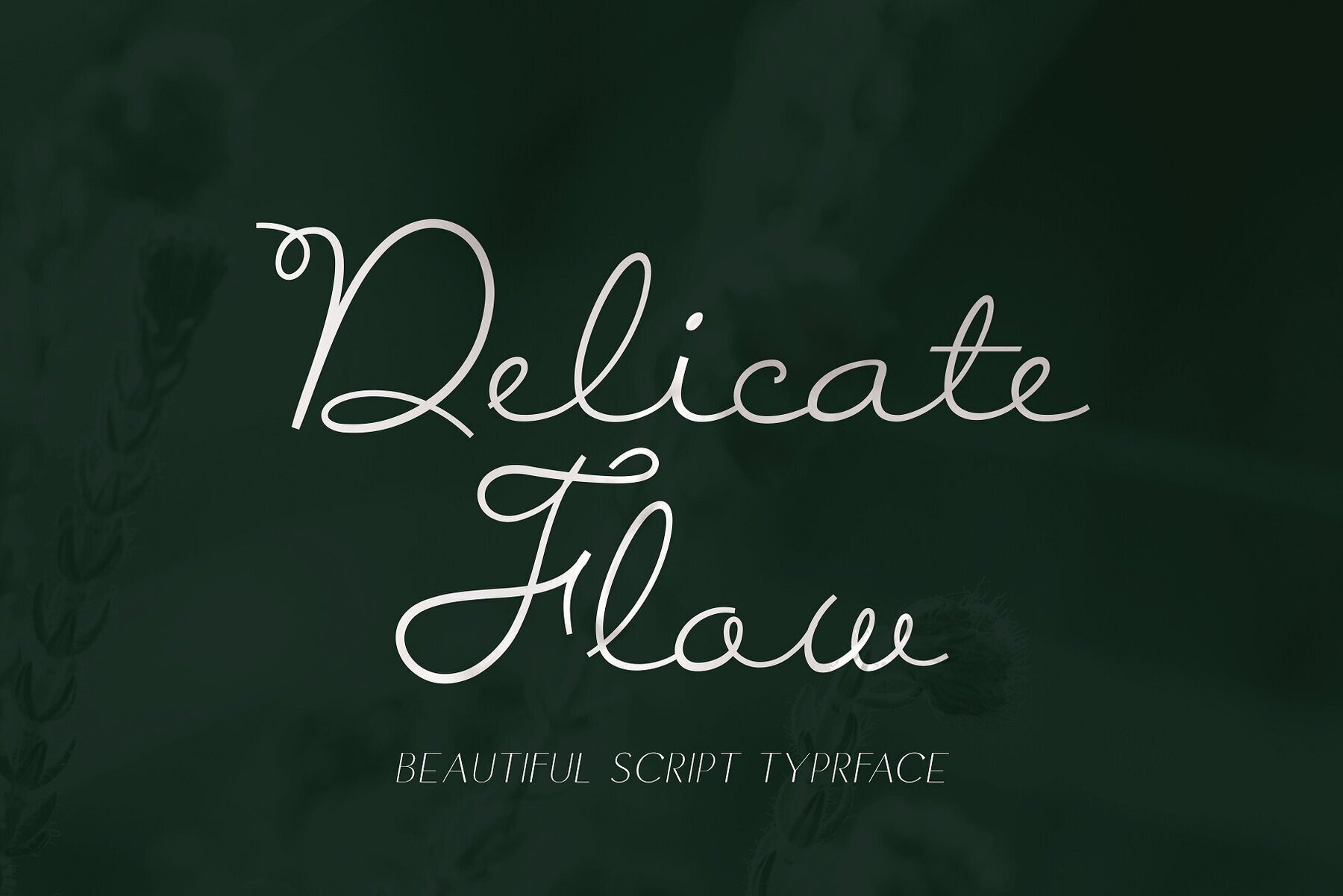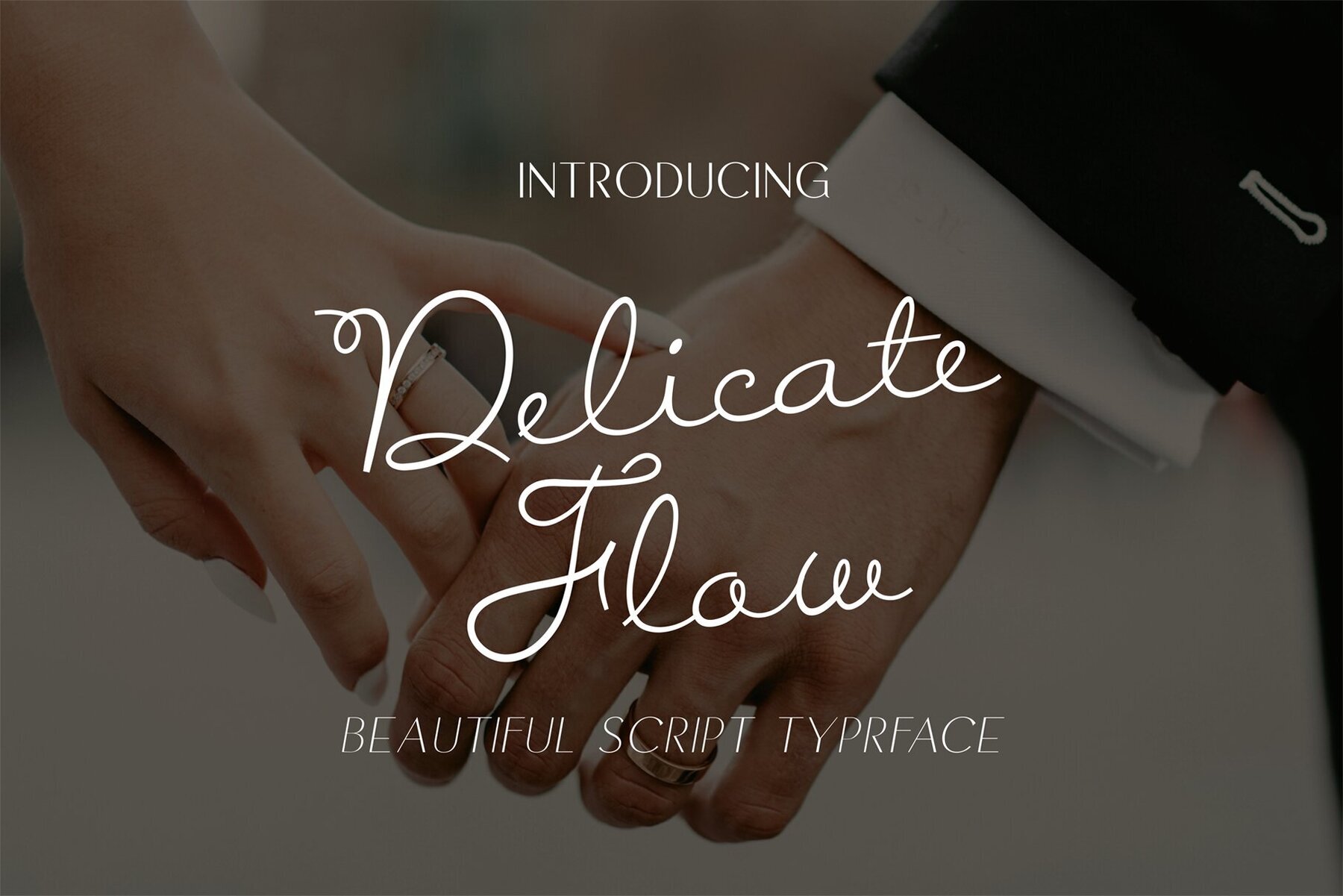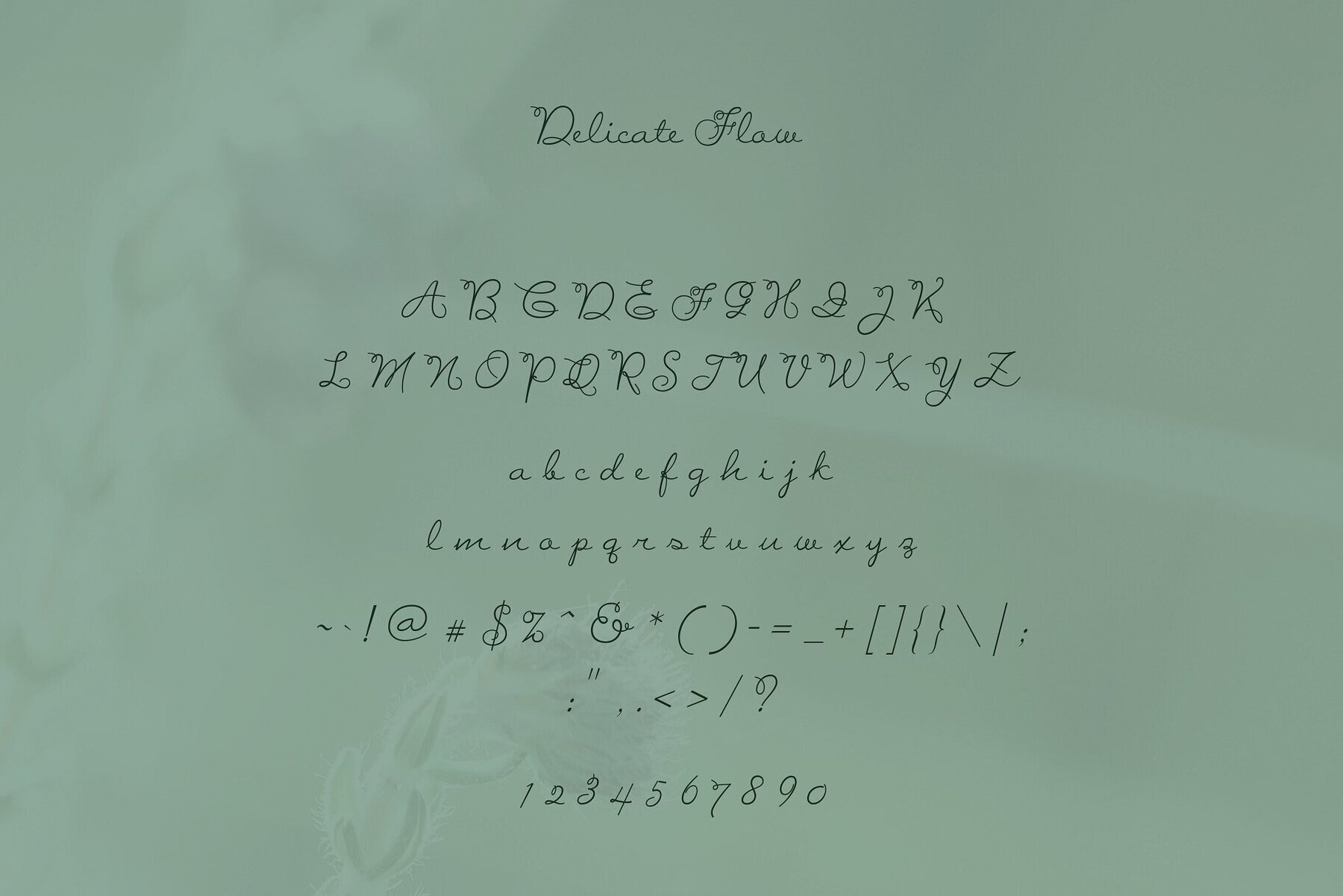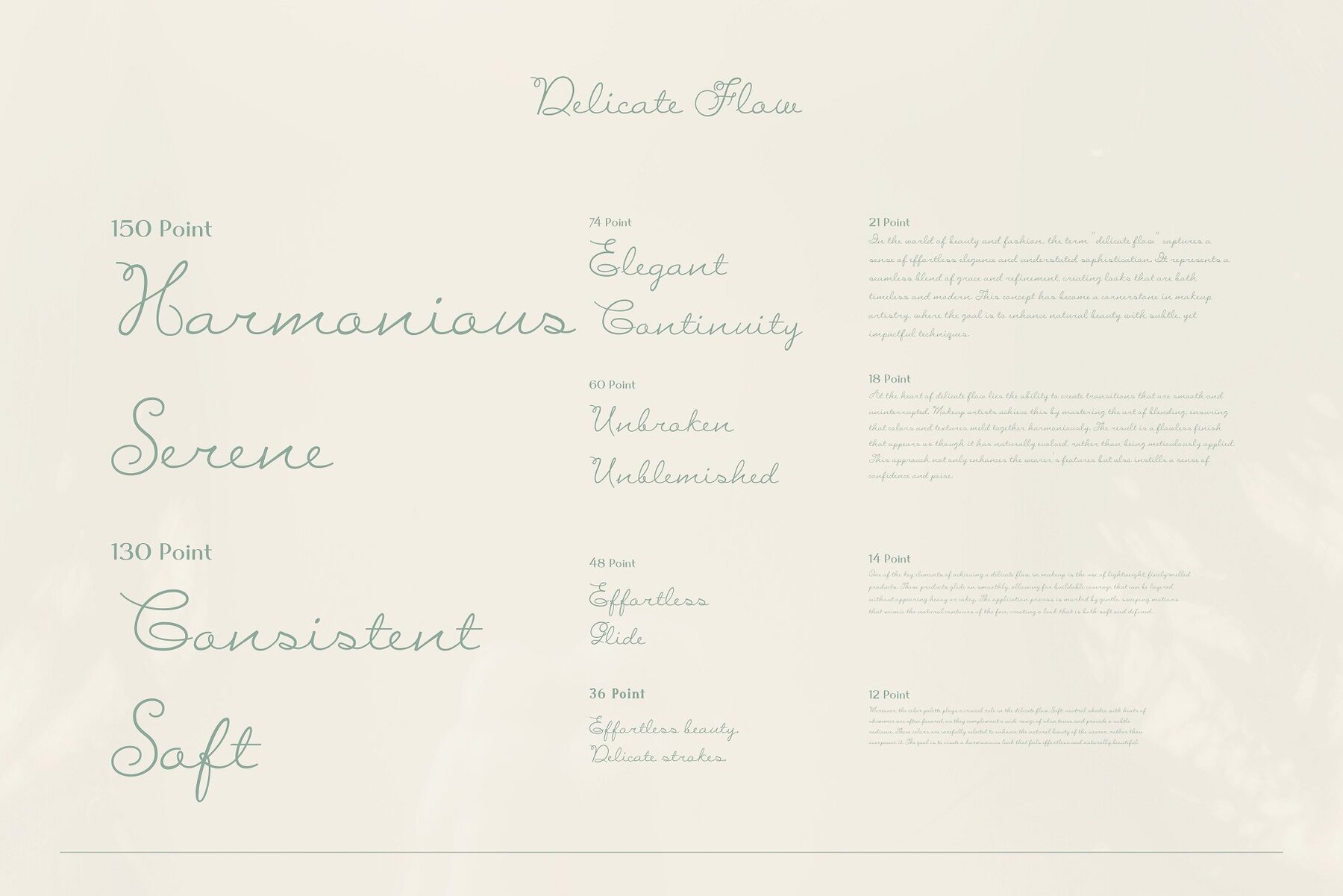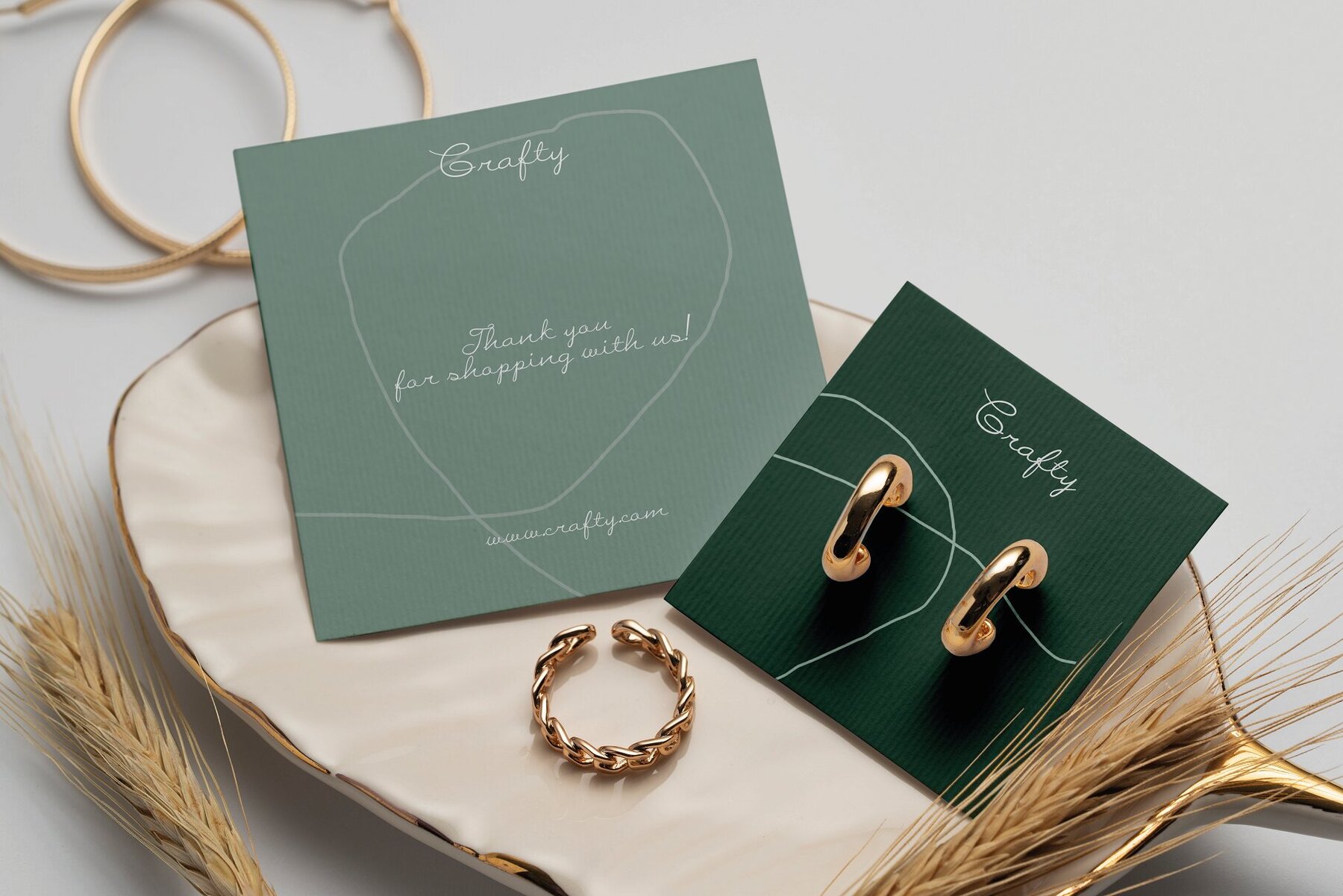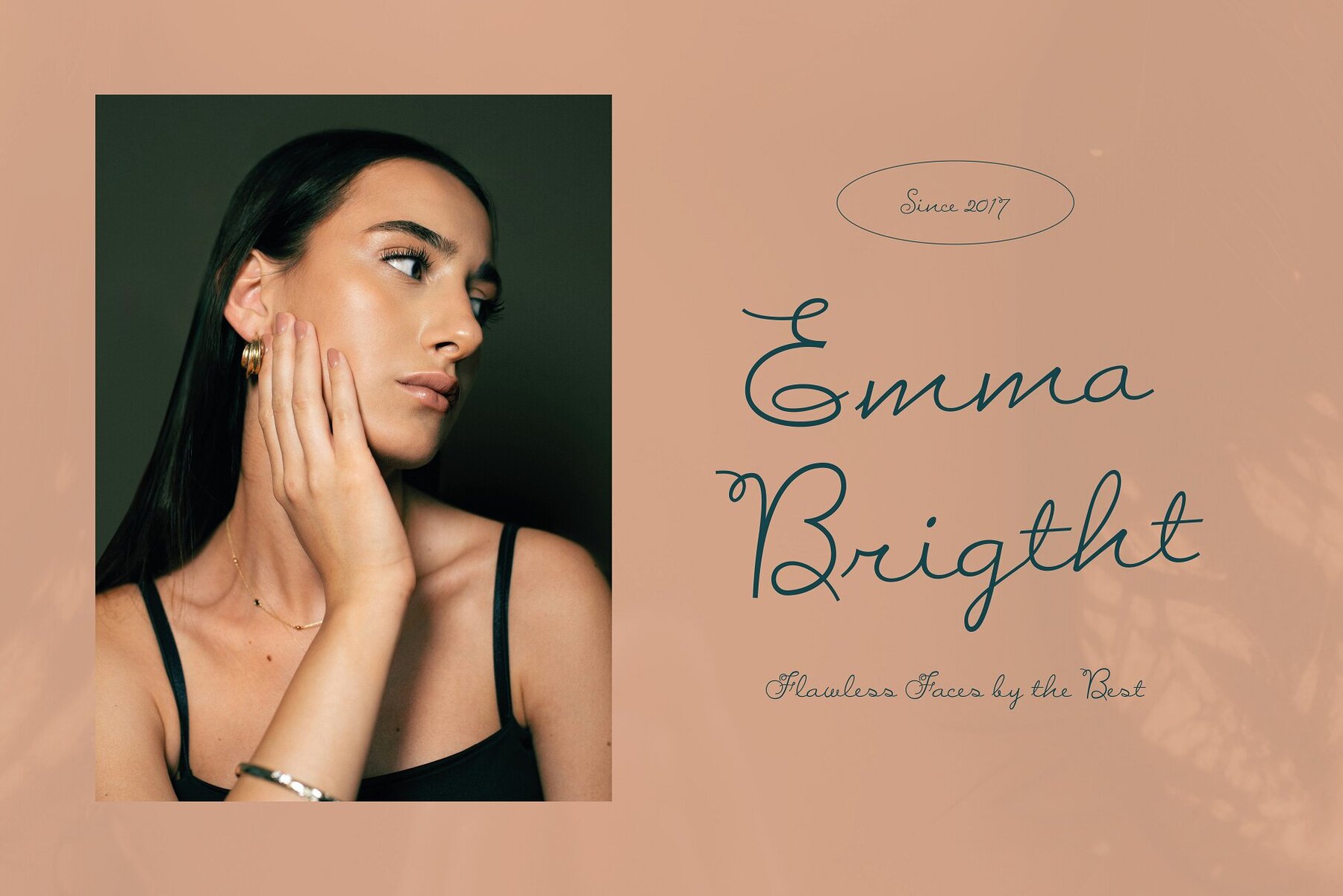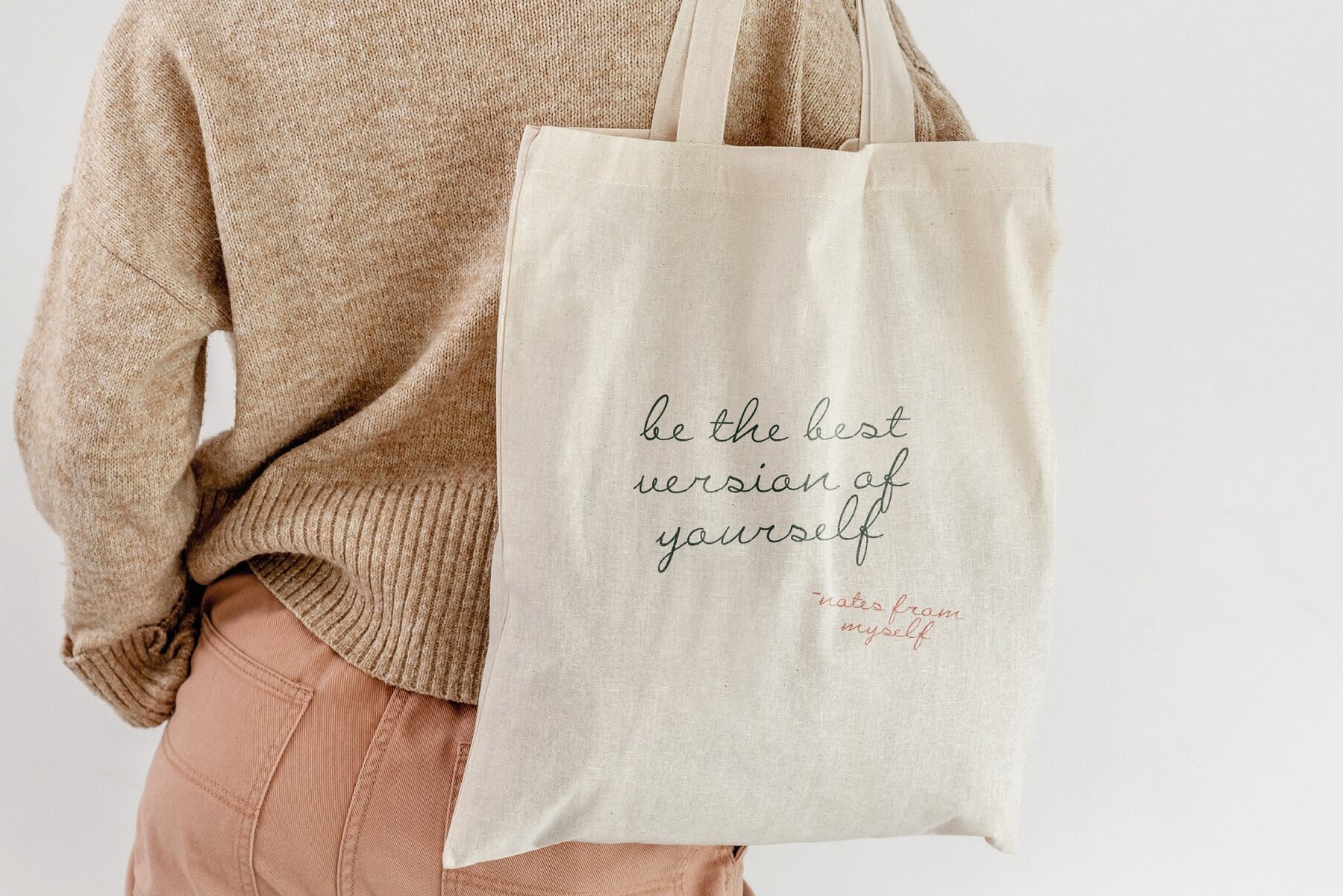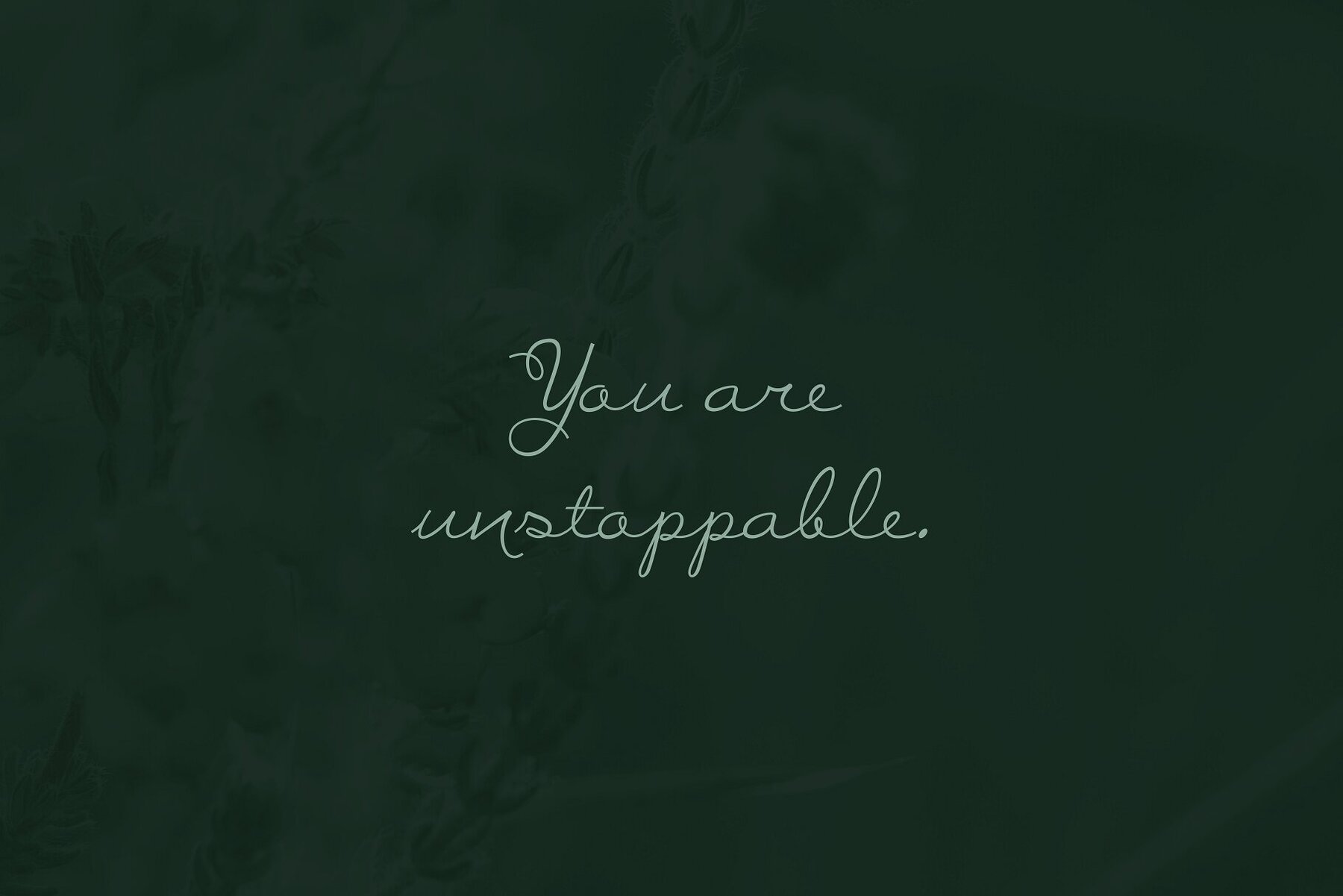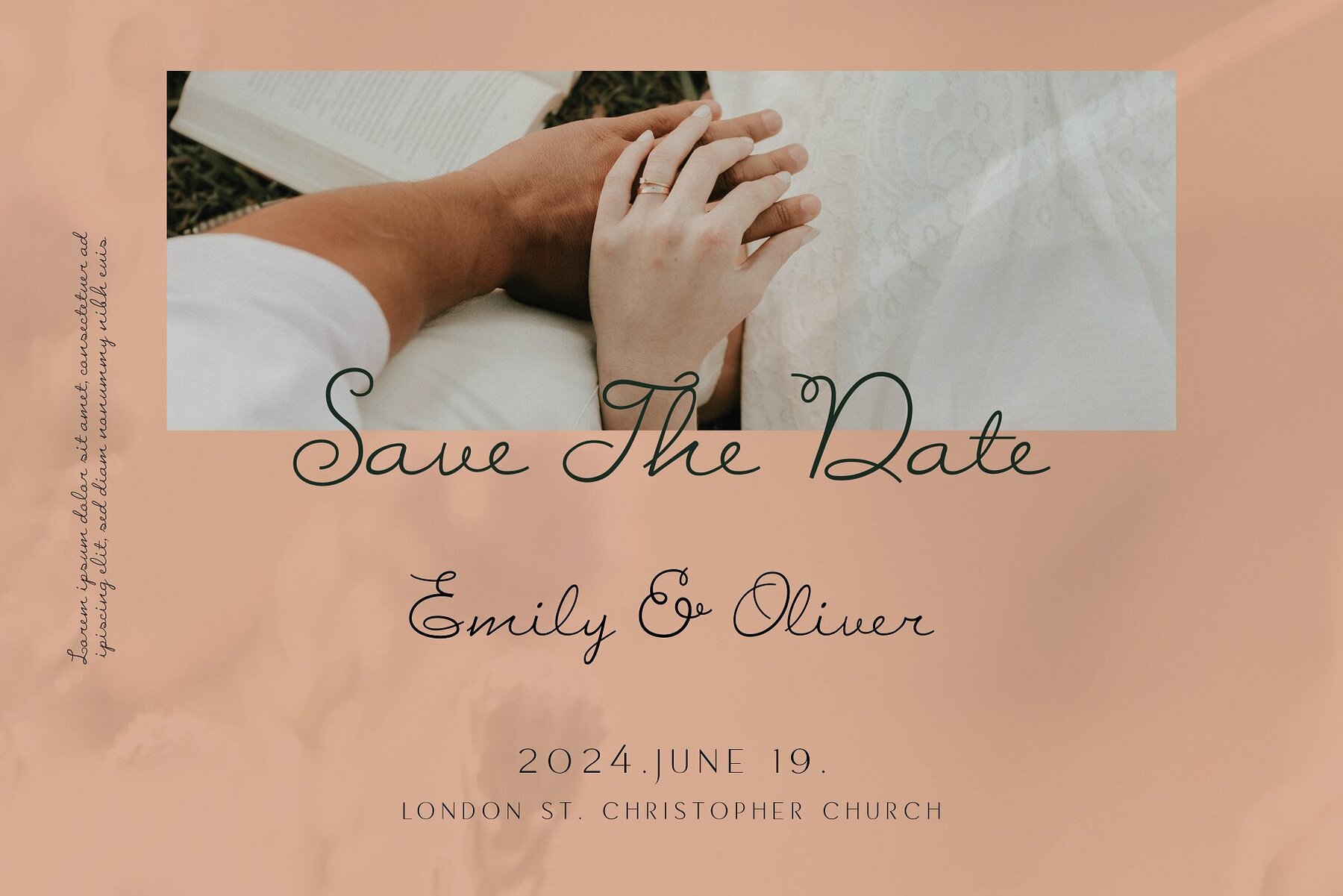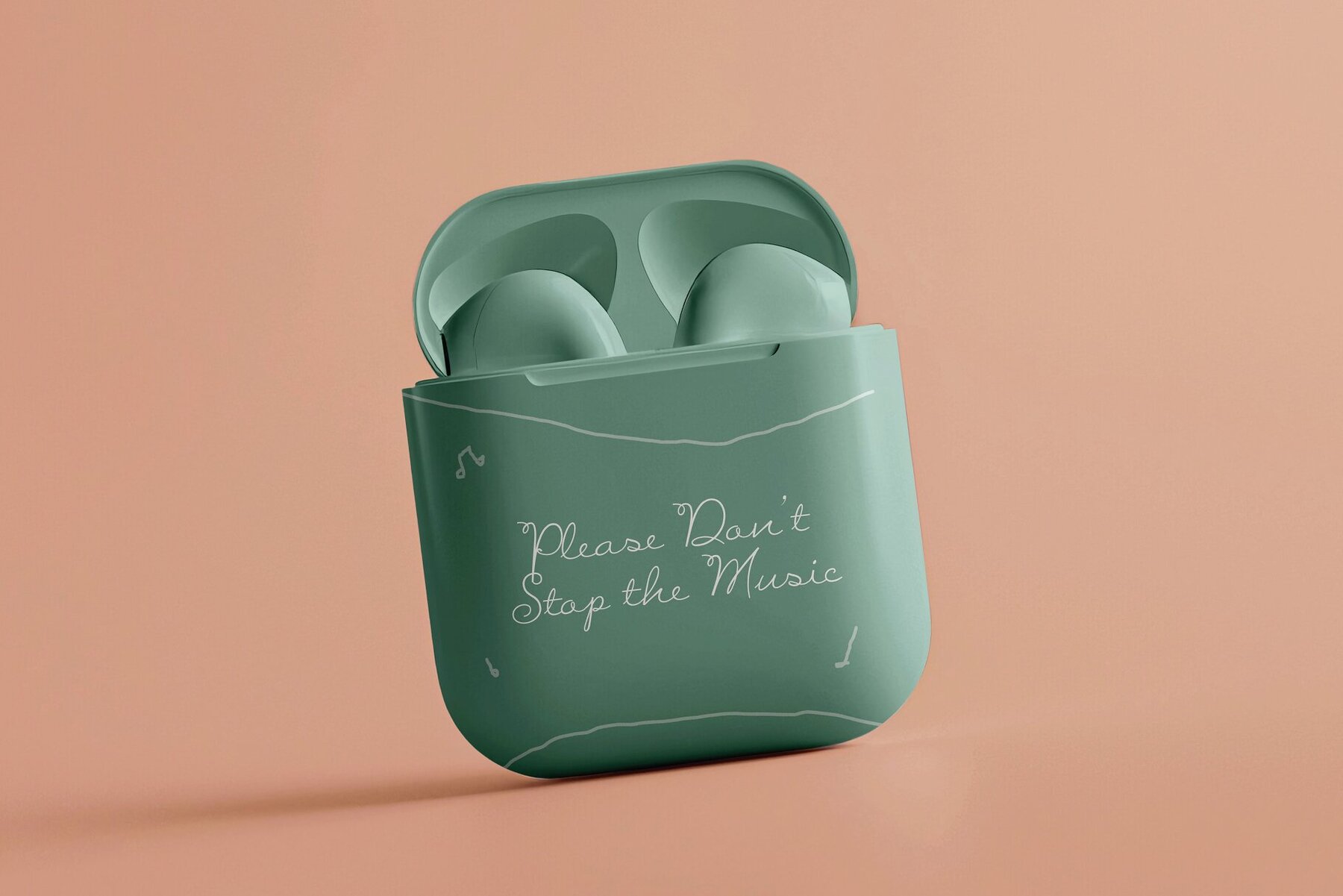
Delicate Flow Font
Delicate Flow Regular
Delicate Flow is a stunning signature script typeface perfect for an array of design projects. Its fluid strokes and graceful curves provide an effortless beauty and sophistication, making it suitable for any design requiring a touch of elegance. This typeface is meticulously crafted to mimic the natural, flowing motion of a signature, adding a personal and intimate feel to every letter. Ideal for branding, logos, wedding invitations, product packaging, and social media graphics, Delicate Flow's versatility ensures seamless adaptation to both formal and informal settings.
Every character in Delicate Flow is designed with precision, offering a harmonious look across your entire project. The typeface includes various alternates and ligatures, allowing you to customize your text and add unique flourishes that enhance the overall aesthetic. Whether designing a luxurious brand identity, elegant wedding stationery, or captivating social media posts, Delicate Flow brings a touch of refined elegance to any work. Its timeless charm and sophisticated appeal make it an ideal choice for designers aiming to leave a lasting impression. Let Delicate Flow be the foundation of your creative projects, infusing them with the grace of a perfectly penned signature.